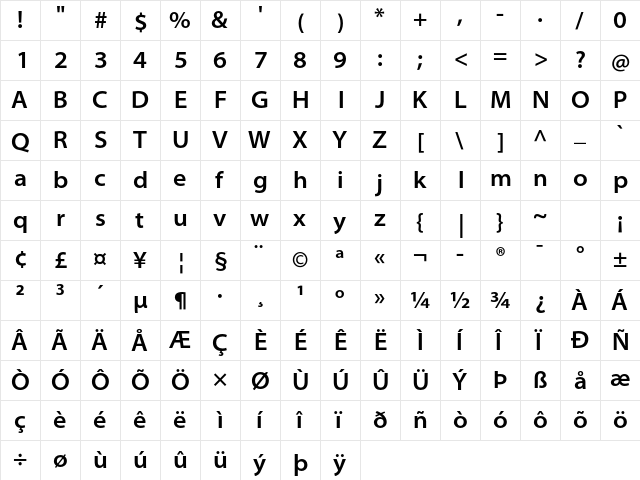
Myriad Pro Semibold SemiExtended
| Designer | Robert Slimbach and Carol Twombly |
Design Context for Myriad Pro Typeface
Myriad Pro is a composed and adaptable typeface that performs quietly and consistently across a wide range of design contexts. The heavy weight commands attention and anchors typographic hierarchies.